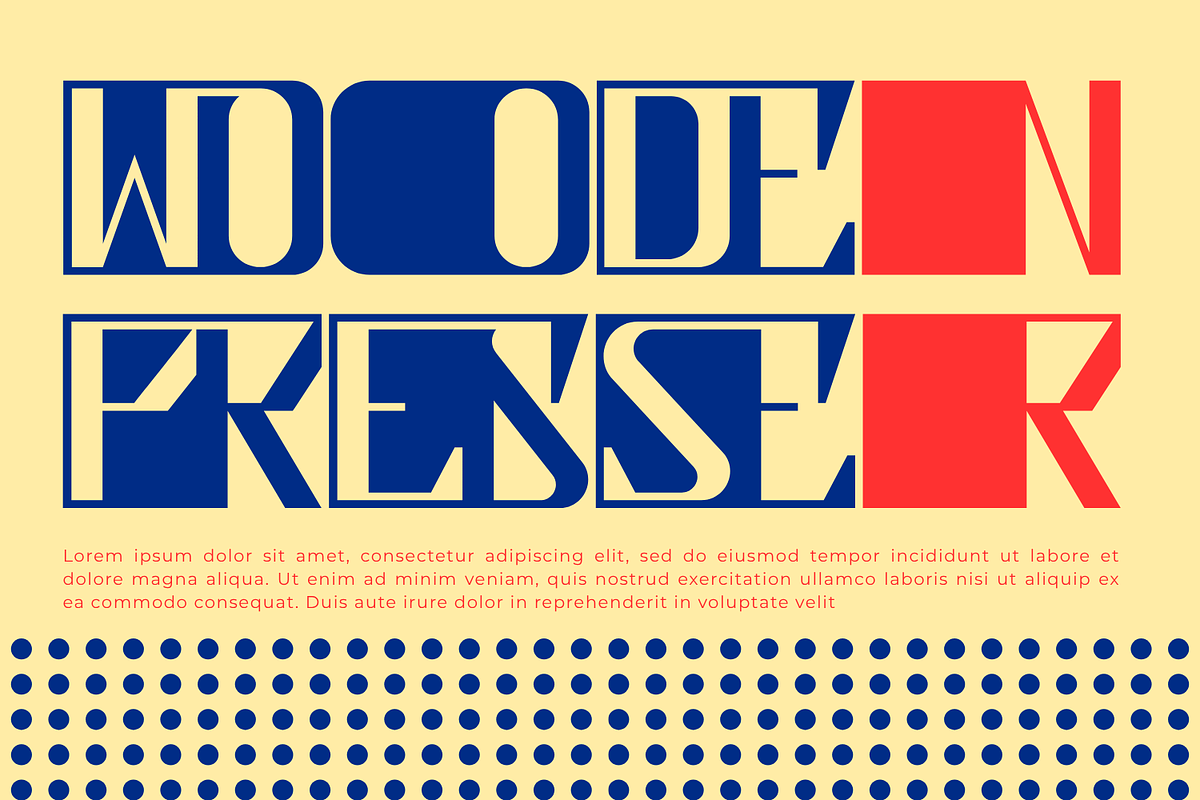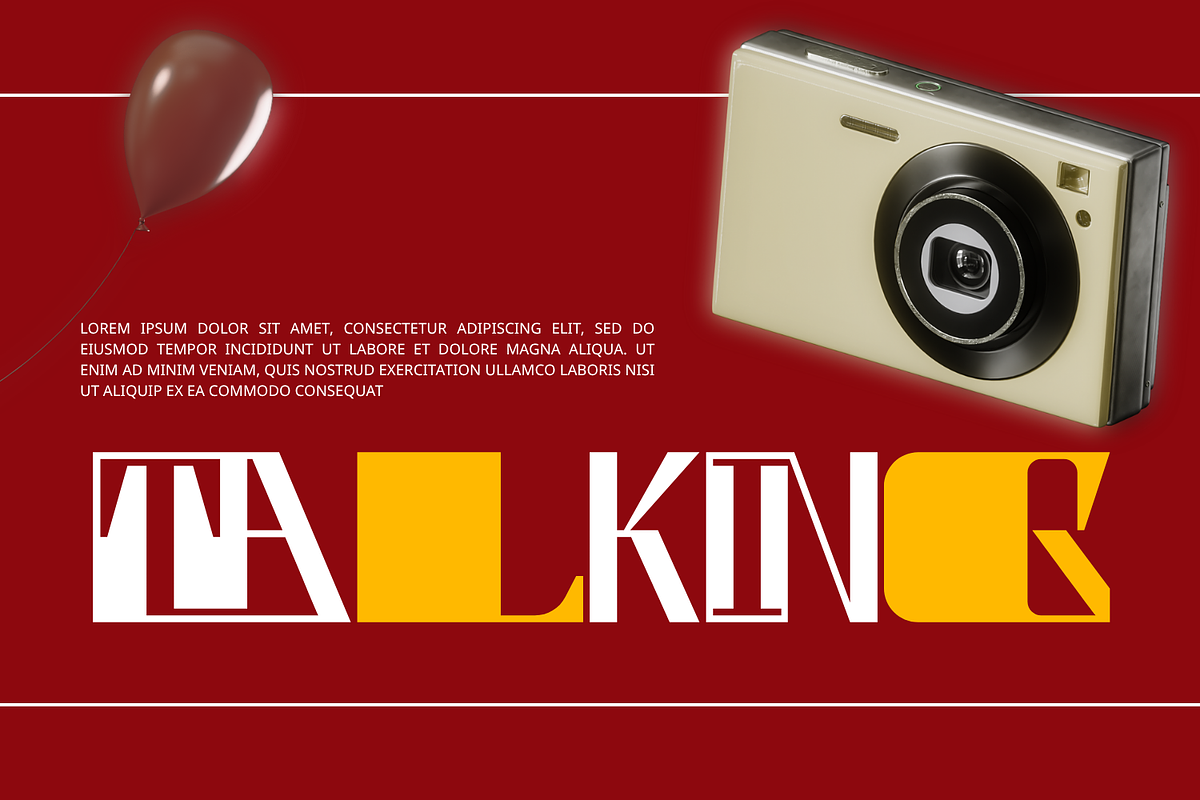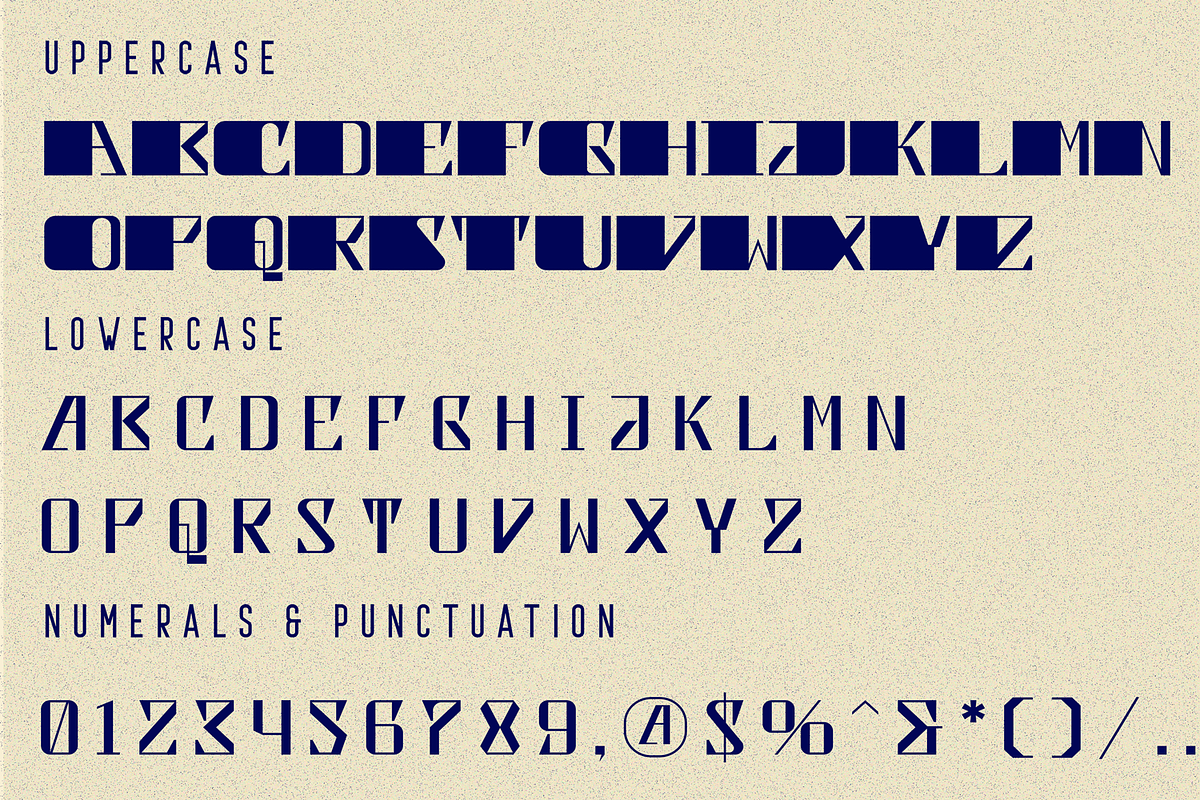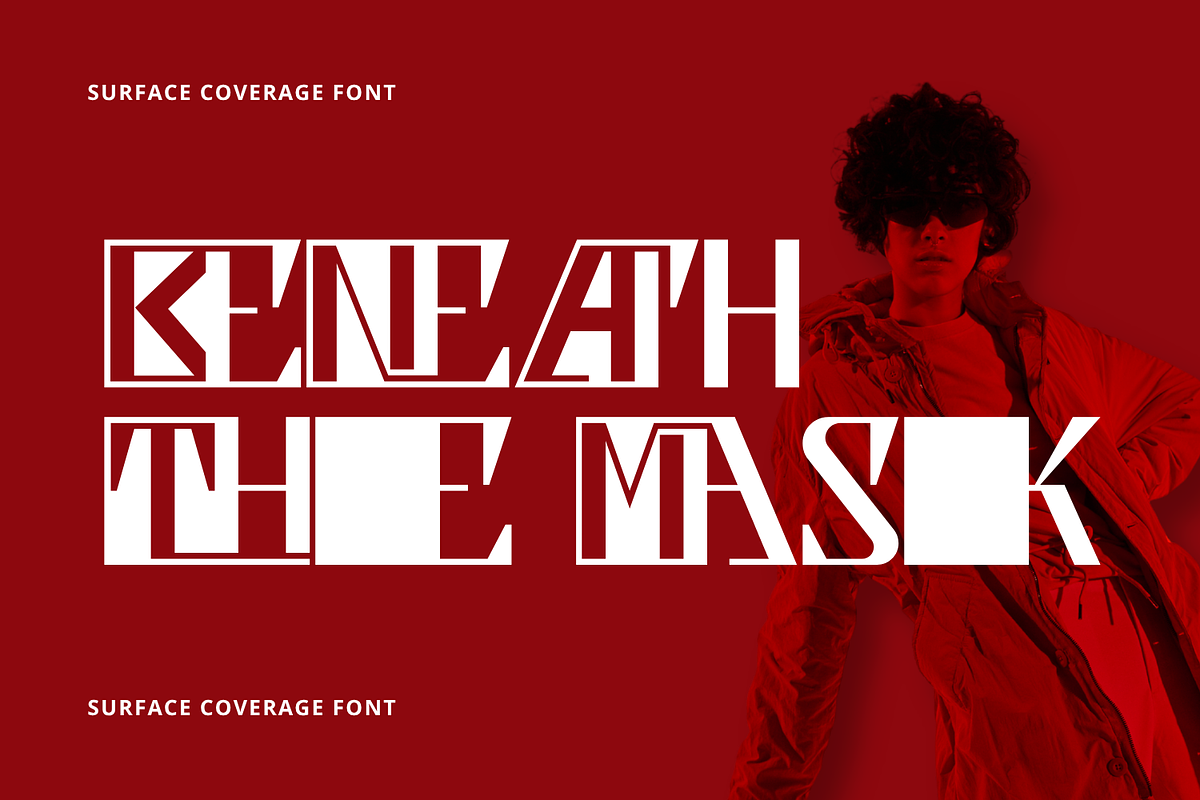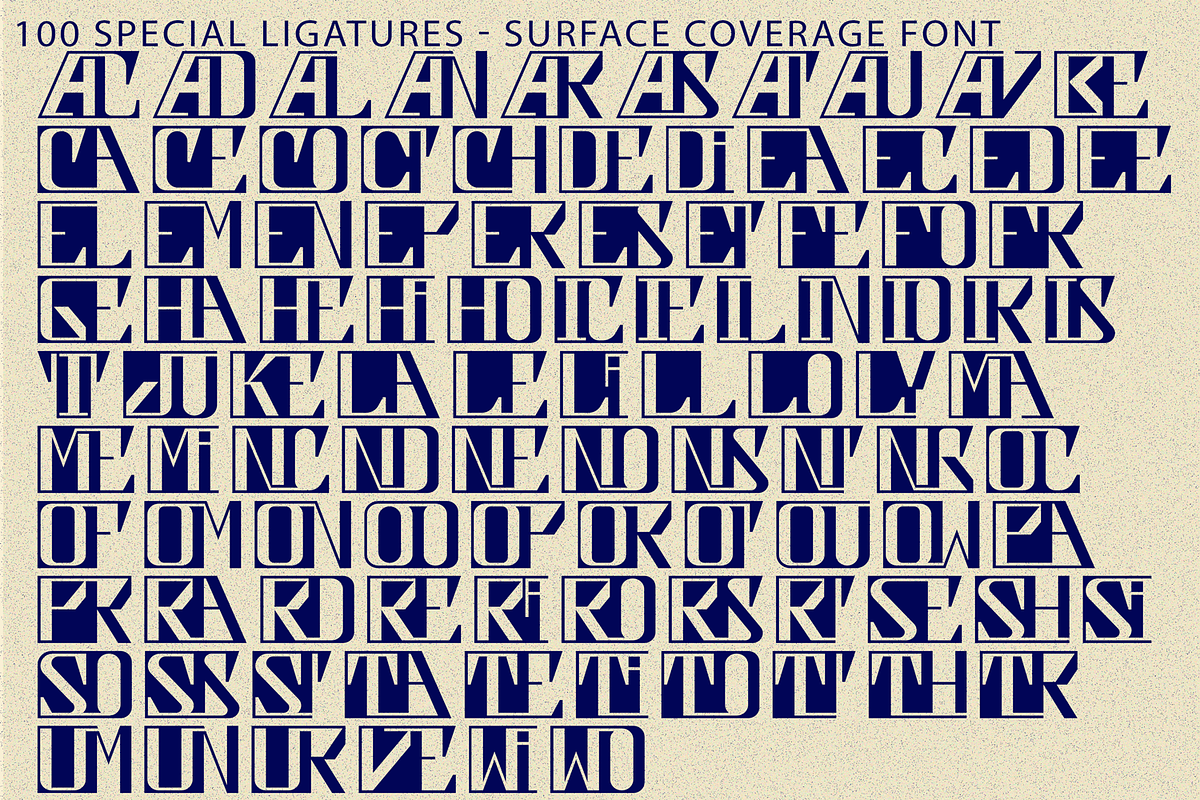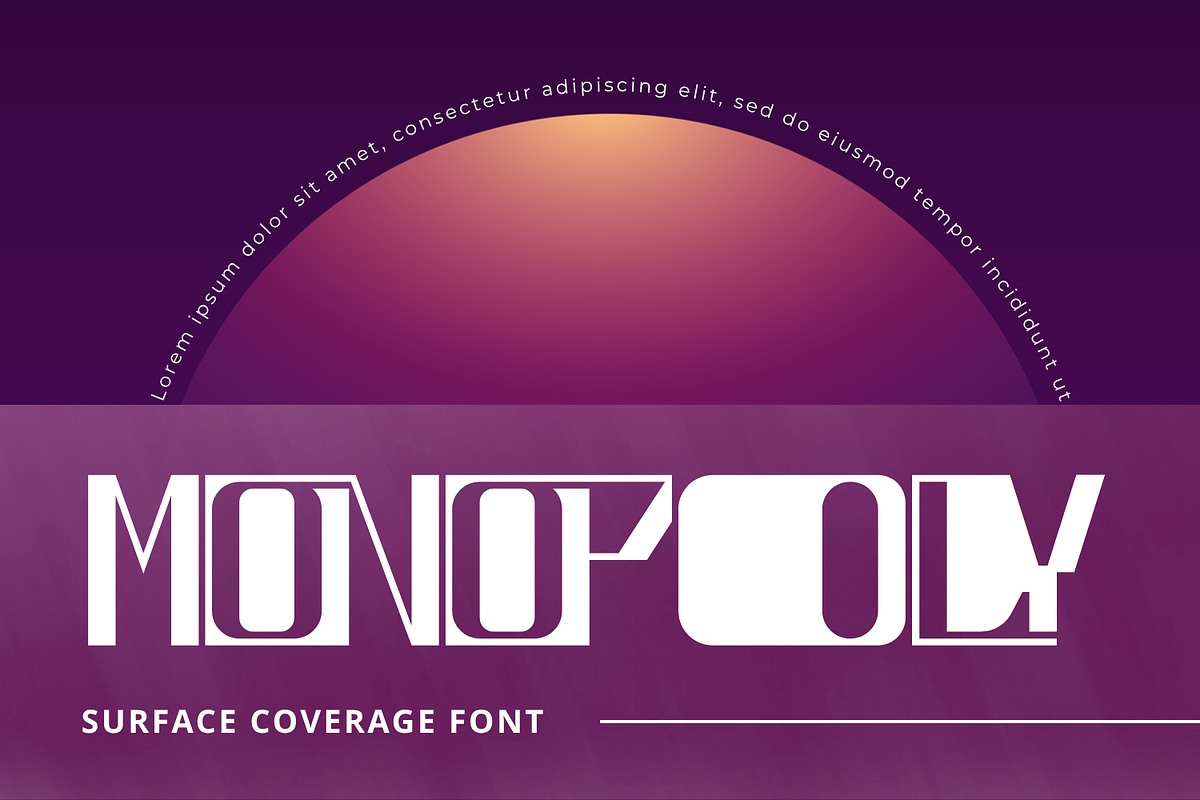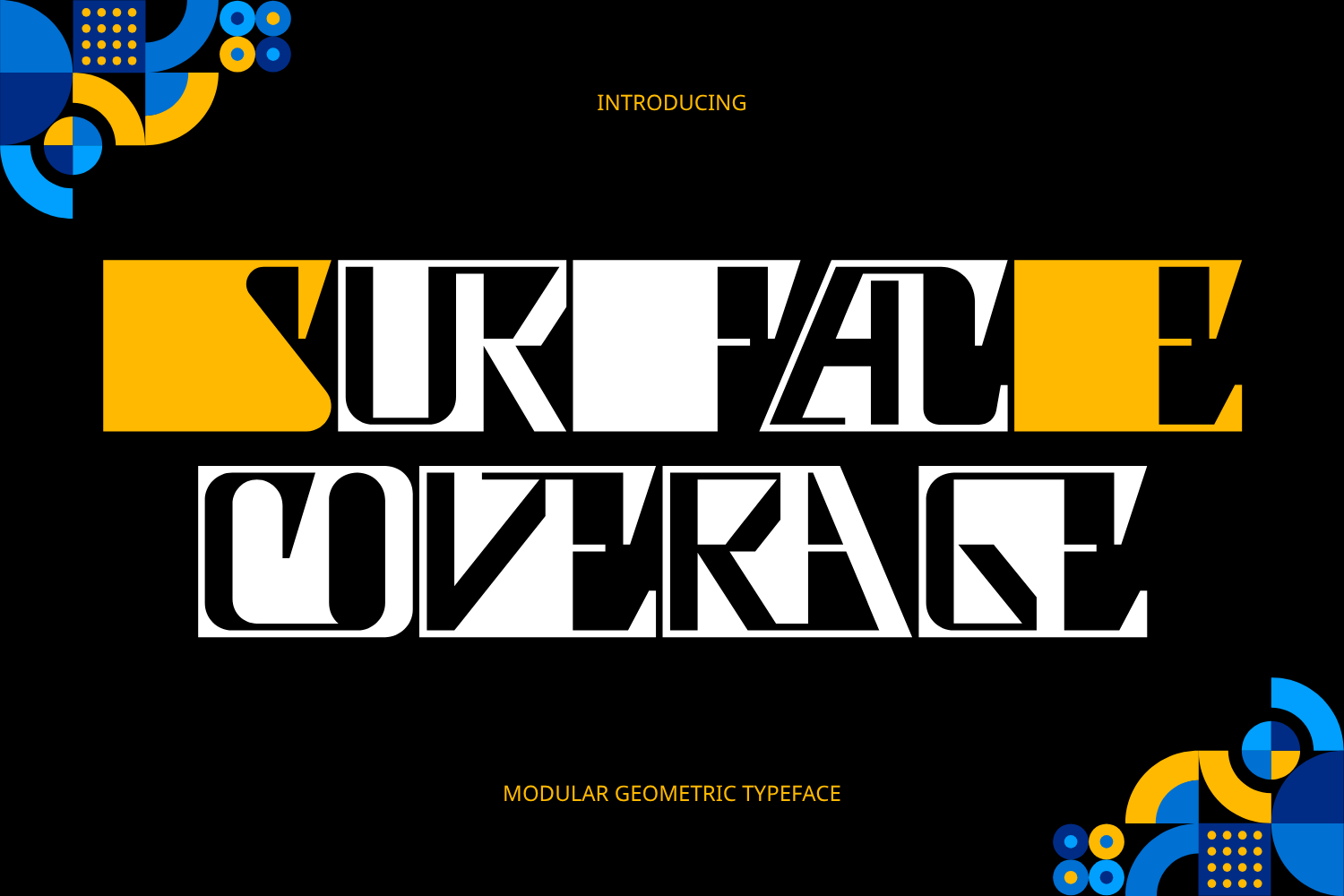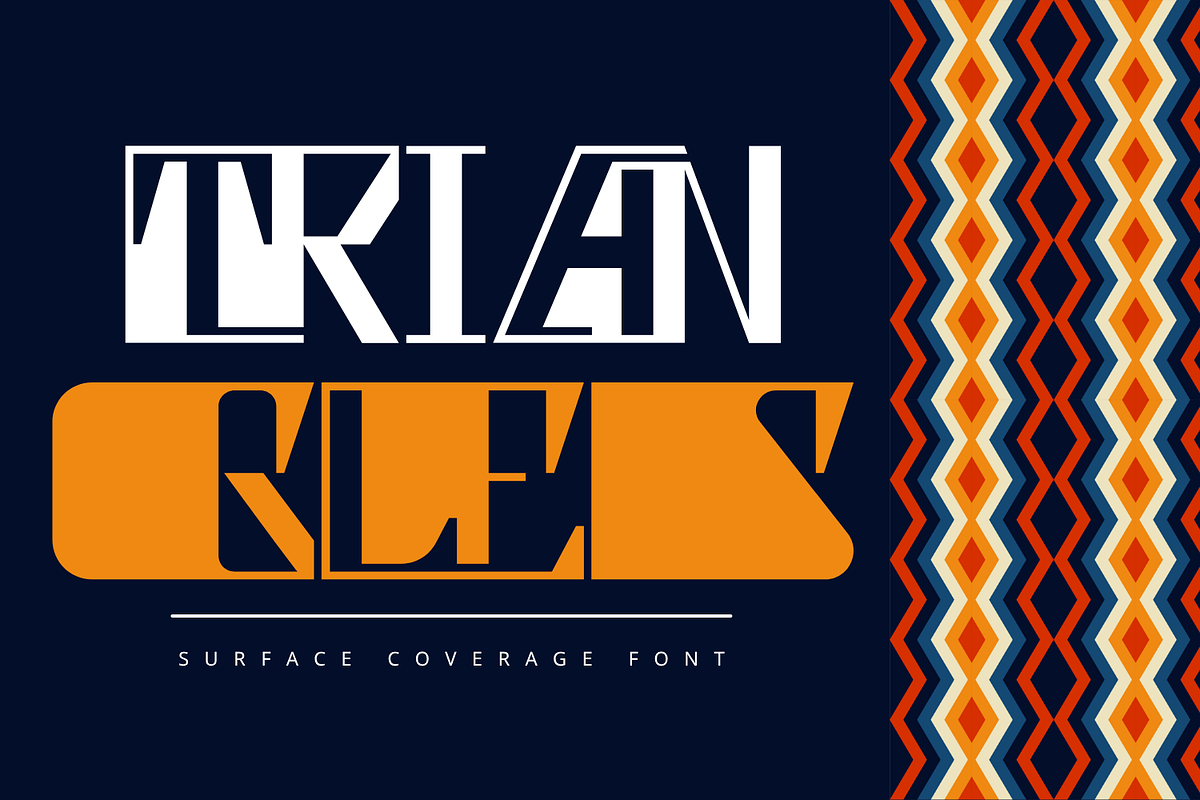
Surface Coverage - Art Deco Font
Surface Coverage - Art Deco Font is a striking Art Deco-inspired display font that blends vintage sophistication with bold geometric design. Featuring architectural letterforms, sharp angular cuts, and carefully crafted negative spaces, this typeface creates a distinctive visual identity that instantly commands attention. Inspired by the glamour and elegance of the Art Deco era, Surface Coverage combines strong structural forms with decorative details to deliver a timeless yet contemporary aesthetic. Its stylized characters and geometric precision make every headline feel refined, dramatic, and memorable.
🔤Features:
Uppercase & Lowercase Letters
Around 100 Special Ligatures & Alternates
Accented Characters for multilingual support
🔤About 100 ligatures combined with Stylistic Alternates Font:
ac ad al an ar as at au av be ca ce ch co ct de di ea ec ed ee el em en ep er es et fe fo fr ge ha he hi ho ie ic il in io ir is it ju ke la le li ll lo ly ma me mi nc nd ne ng no nt ns oc of om on oo op or ot ou ow pa pr ra rd re ri ro rs rt se sh si so ss st ta te th ti to tr tt um un ur ve wi wo